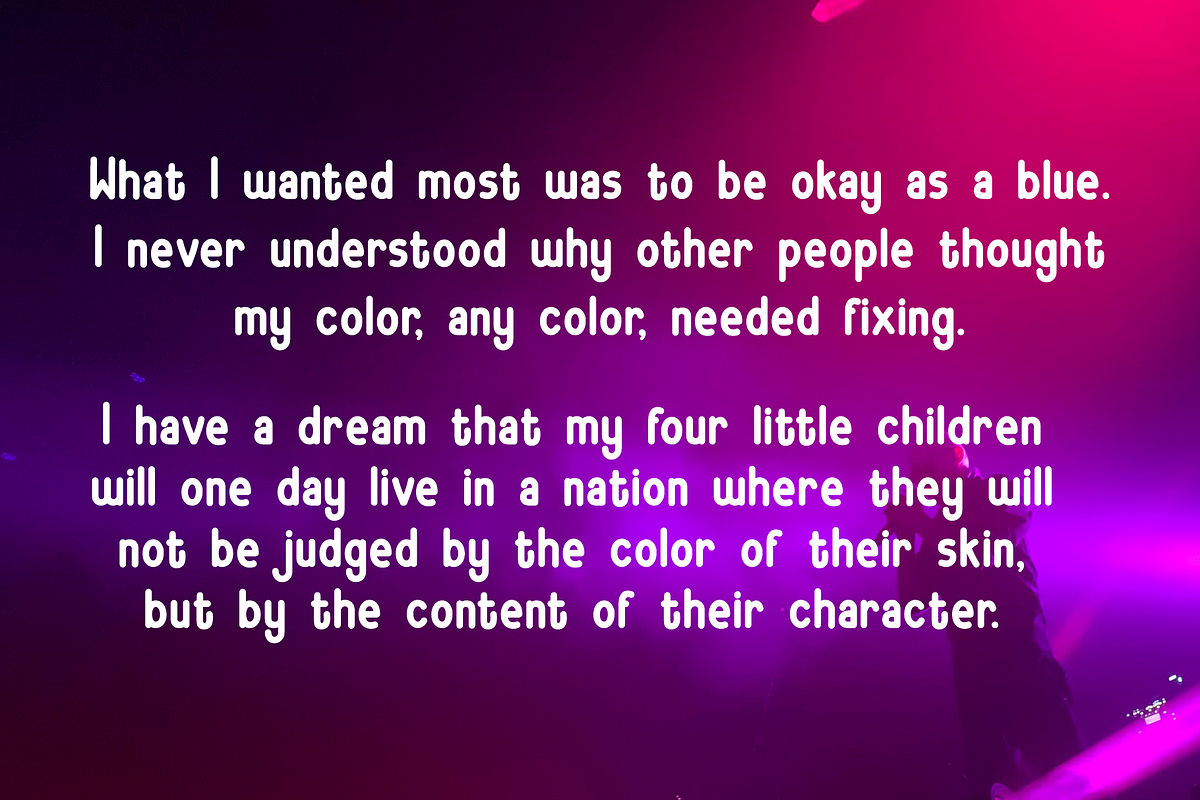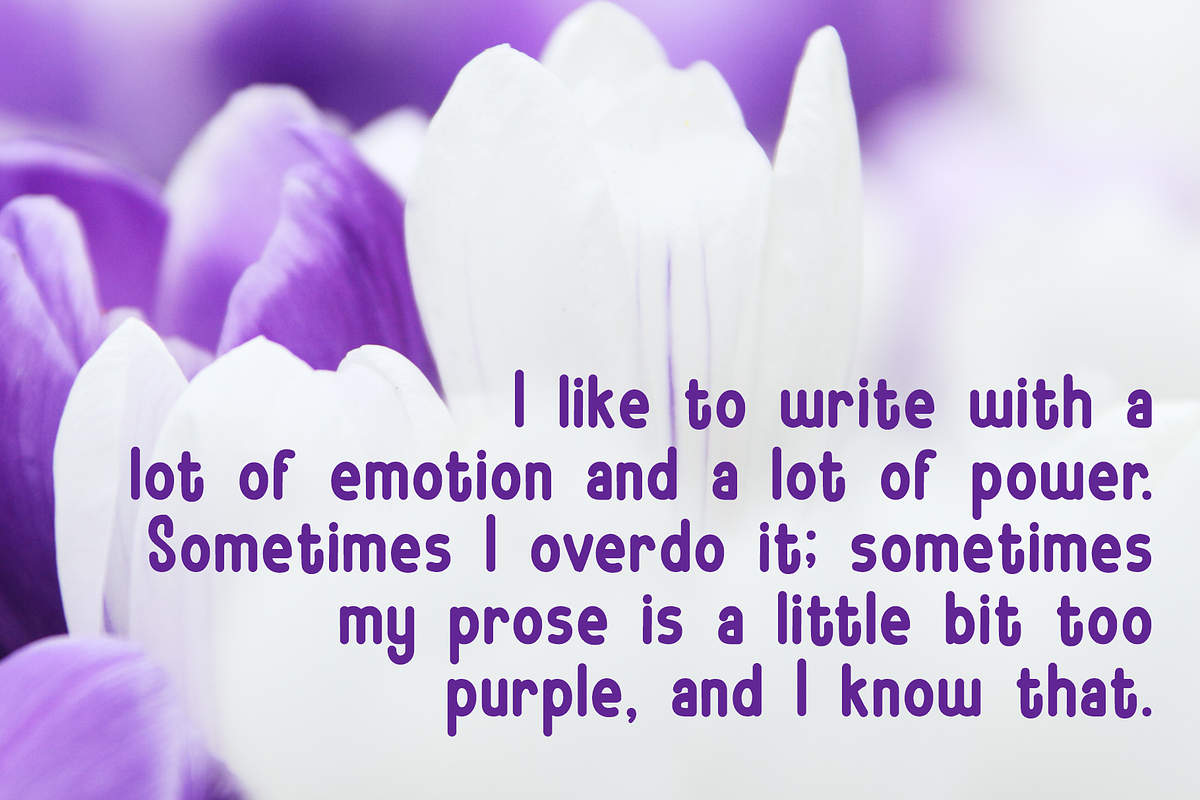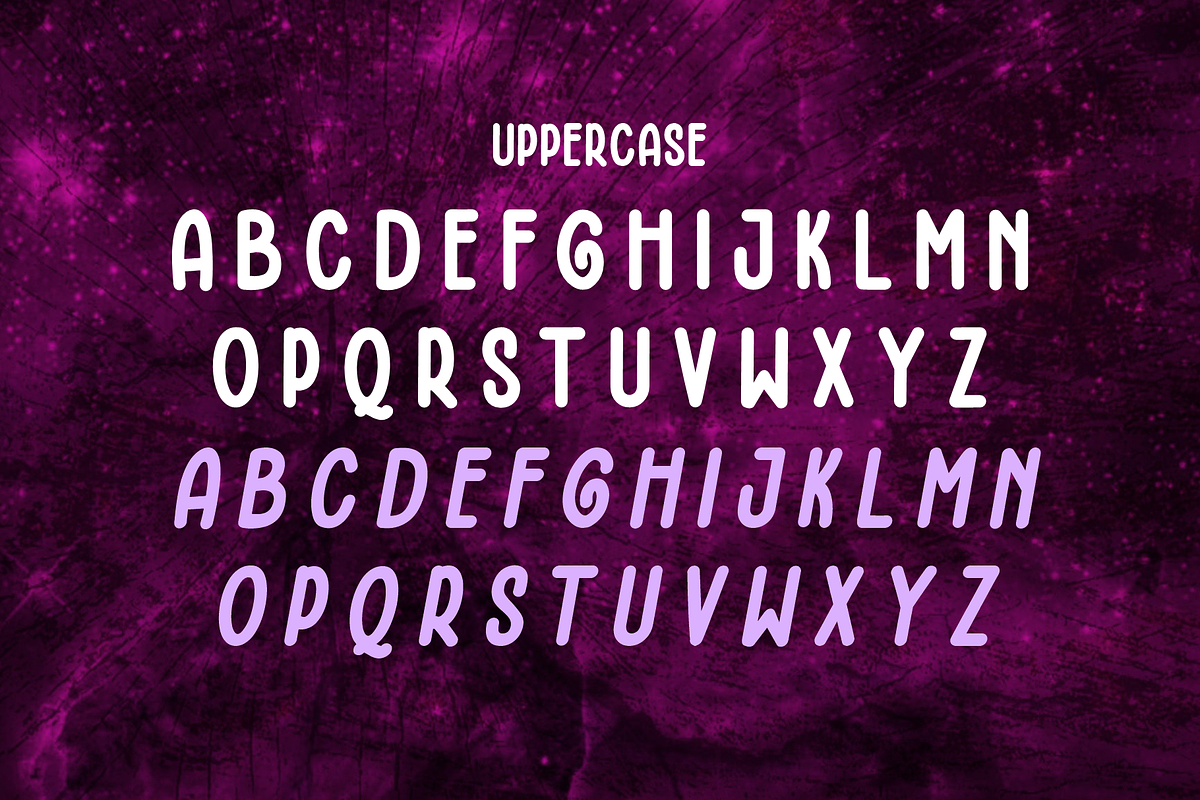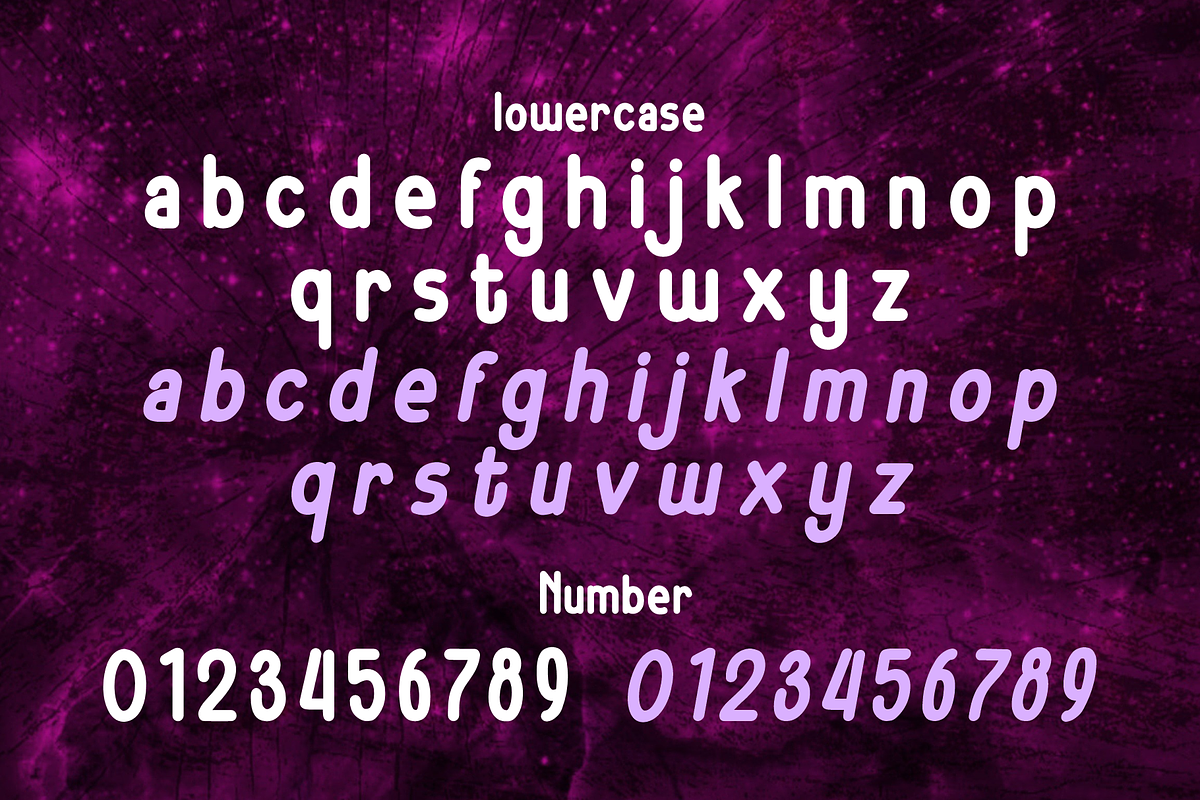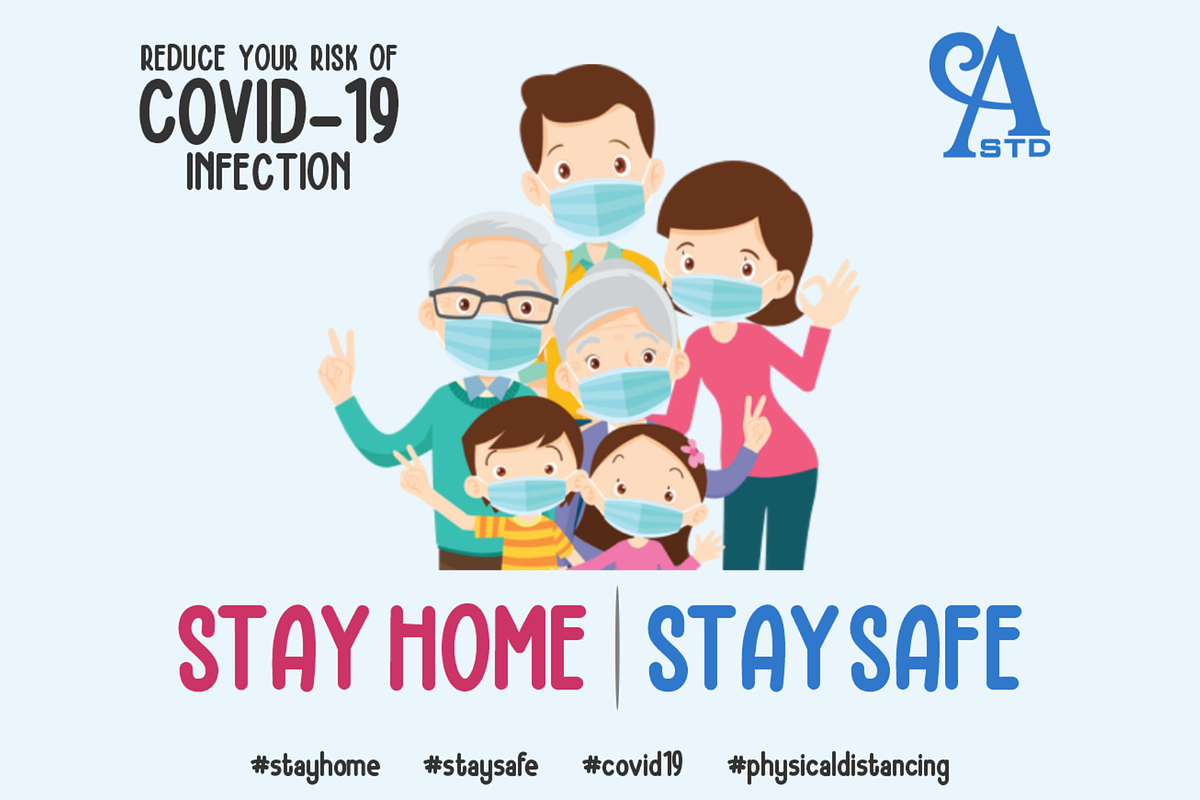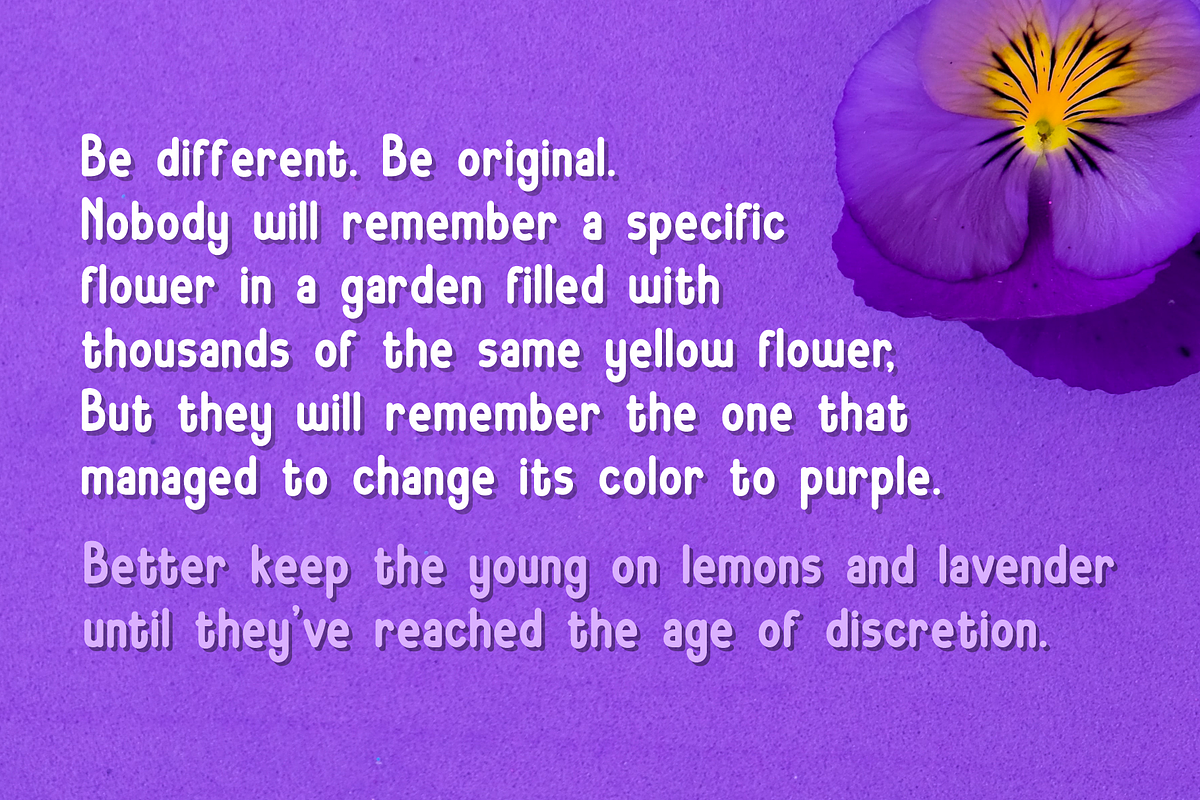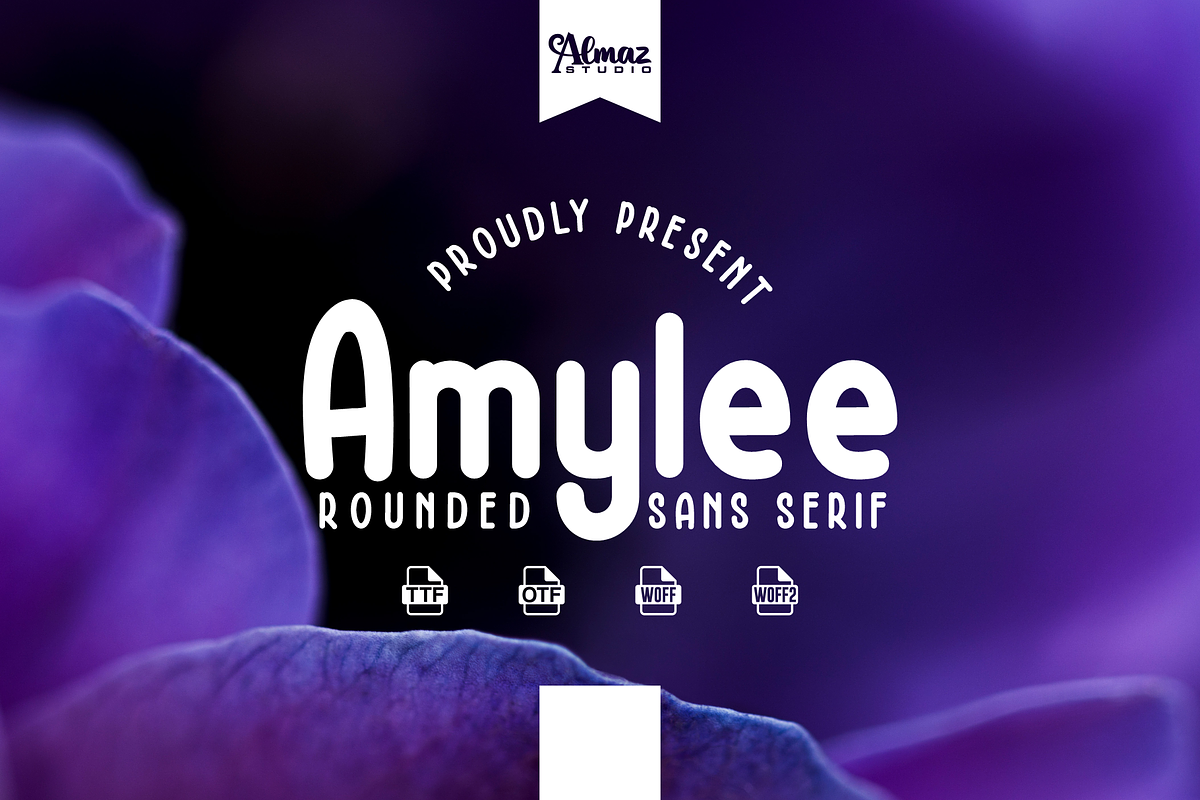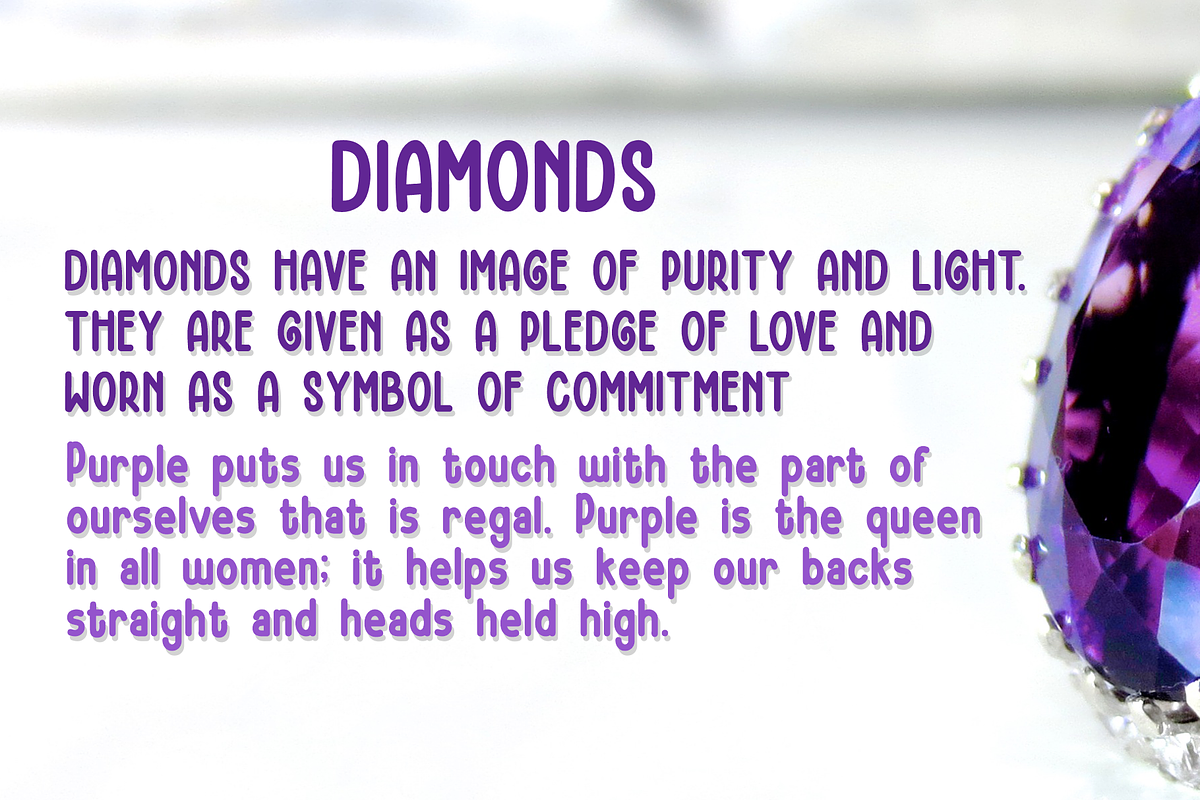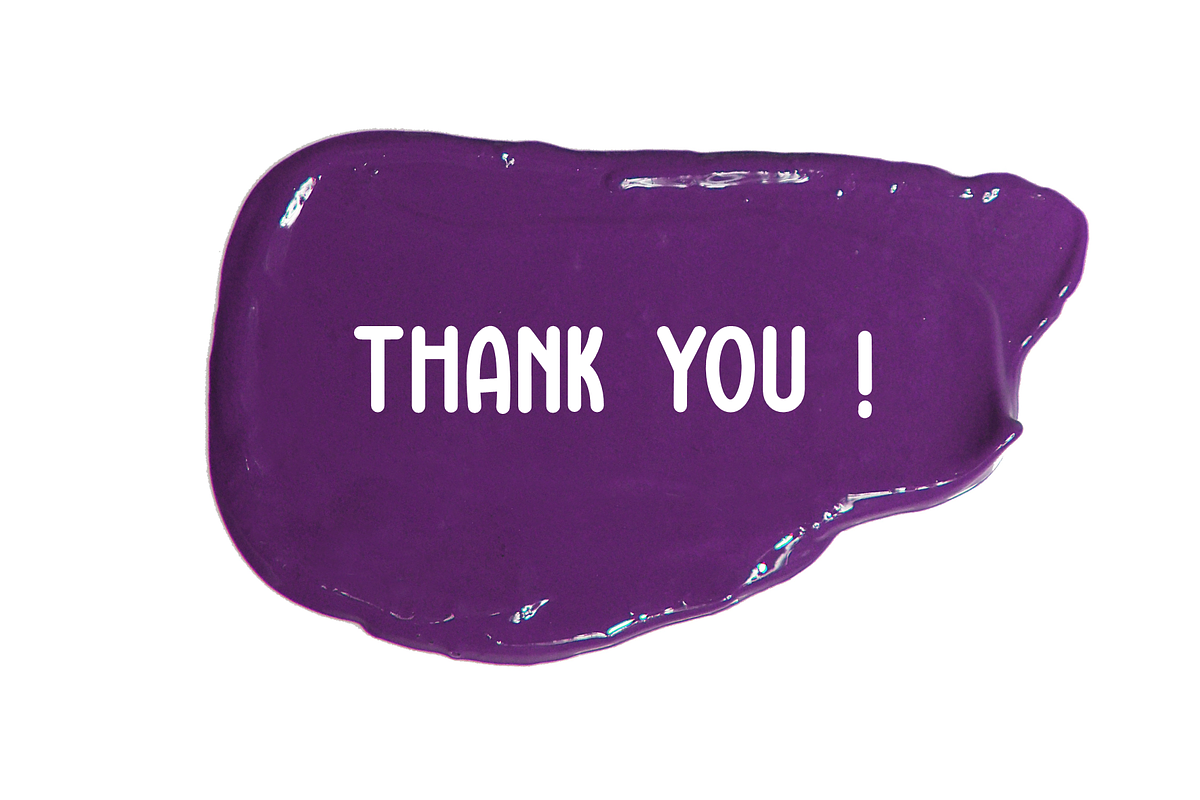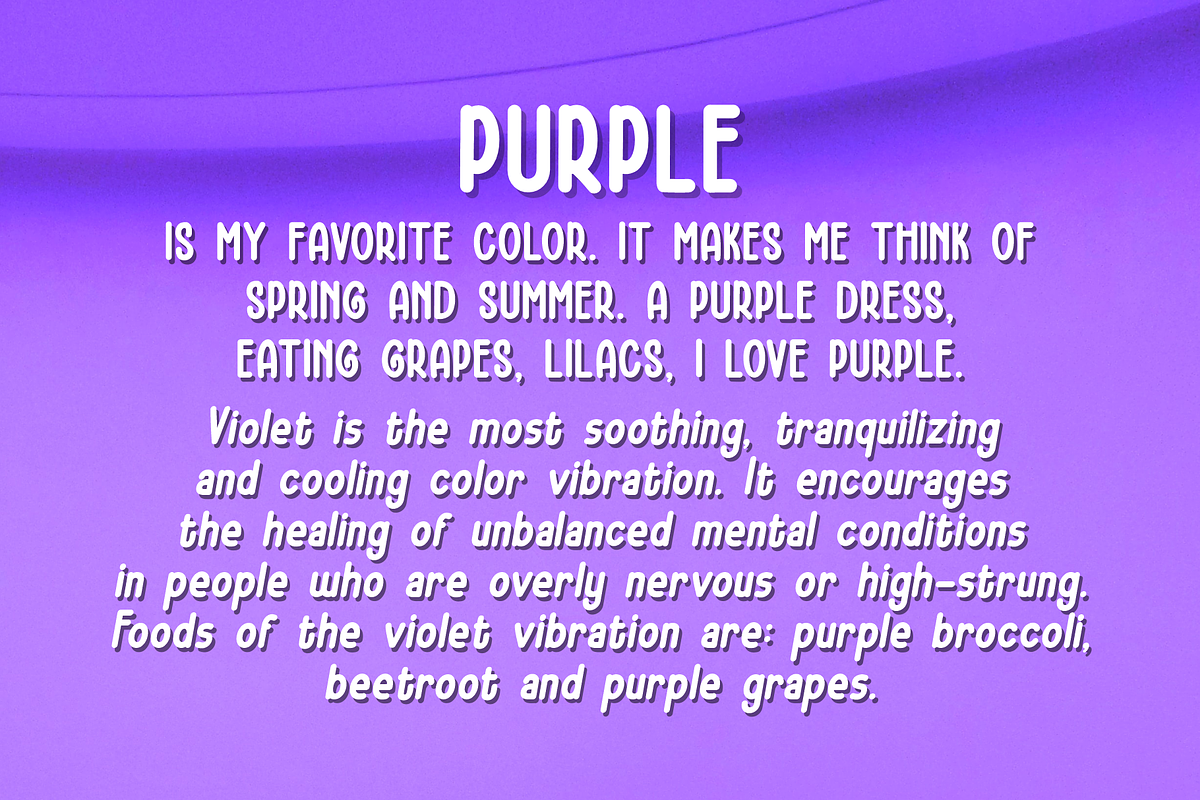
Amylee
Amylee font is perfect for those of you who want the style of children. Fonts Made specifically for purposes such as: Kindergarten, Birthday, Kid, Cartoon, Comic, Children, and Playful. This Font contains Modern, Elegant, Creative, Professional and Unique Concept. Amylee font is a minimalist fancy comic font. Amylee clean lines and sharp edges make it a perfect sans the different weights make it a stellar option for branding and web use looks really beautiful.